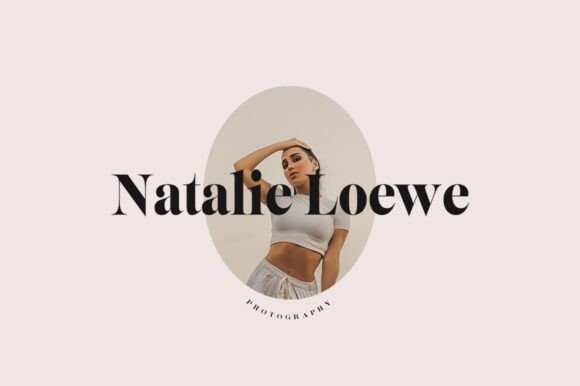
Monalista Font
Monalista is a modern and fresh serif font. Classy and stylish, this font is suitable for a wide spectrum of applications. Add it to your trendy projects and enjoy the results!